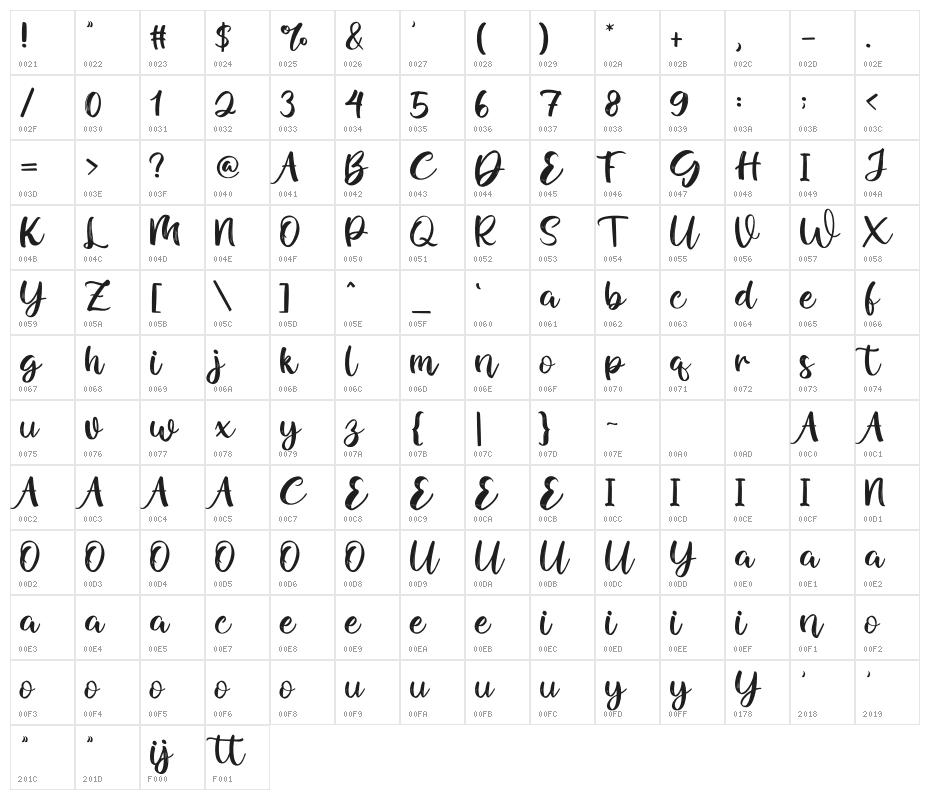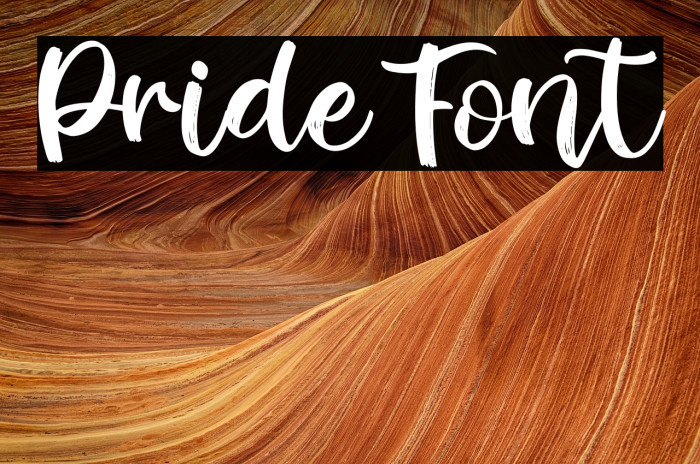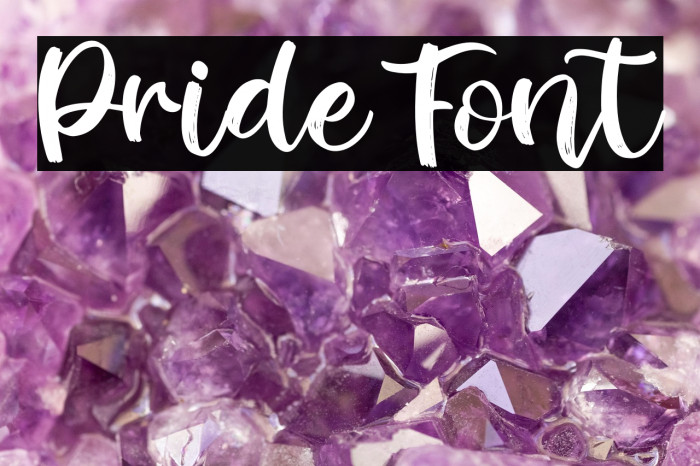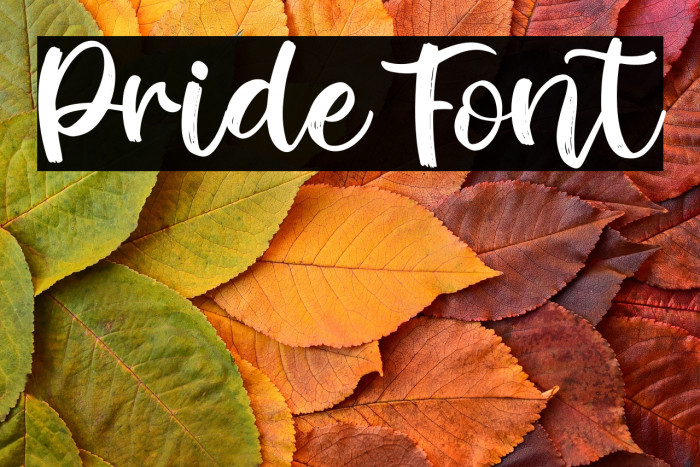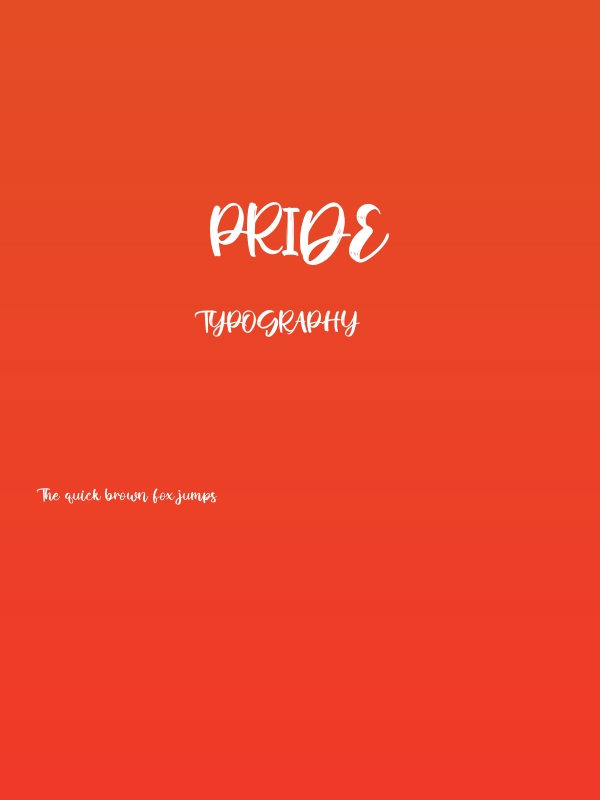
Pride Font
Pride Description
This font features a bold and expressive handwritten style, characterized by its fluid and dynamic strokes. The letters have a playful and artistic flair, with varying thicknesses that add a sense of movement and energy. The uppercase and lowercase letters are well-balanced, maintaining a consistent flow throughout. The numbers and special characters complement the alphabet with the same lively and bold aesthetic. This font is ideal for projects that require a personal and creative touch, making it suitable for invitations, posters, and branding materials.
| Proposed Projects | Ideal for invitations, posters, branding, and creative projects. |